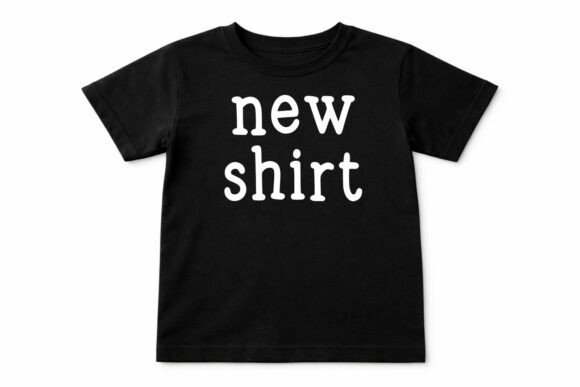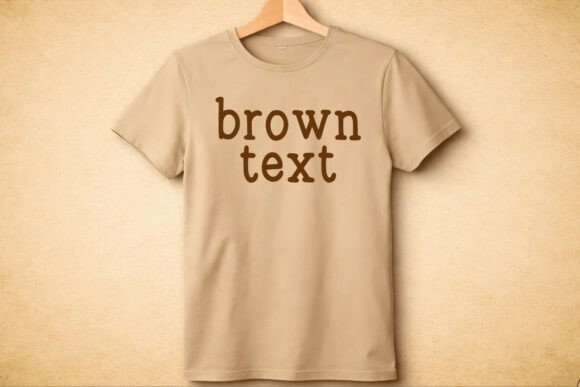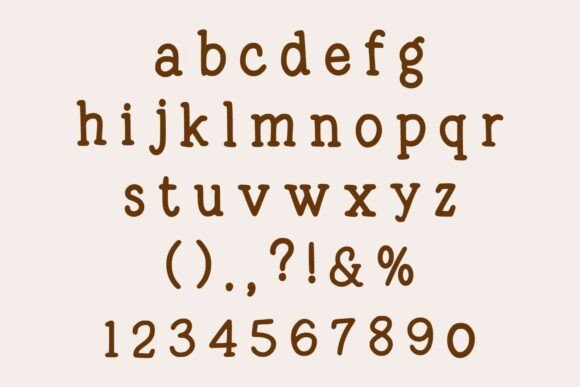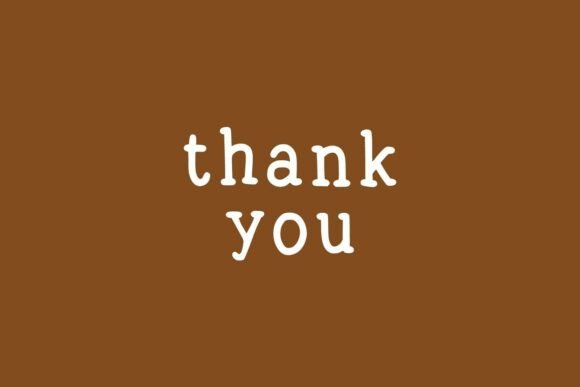
Introduction to Minimalist Typewriter Font
Minimalist Typewriter Classic Display Font is a clean and elegant typeface inspired by traditional typewriter lettering.
With its simple shapes and classic vintage character, this font brings a timeless and authentic feel to any design It is perfect for editorial designs, book covers, logos, posters, branding, packaging, and retro-themed projects.
Key Features of Minimalist Typewriter Font